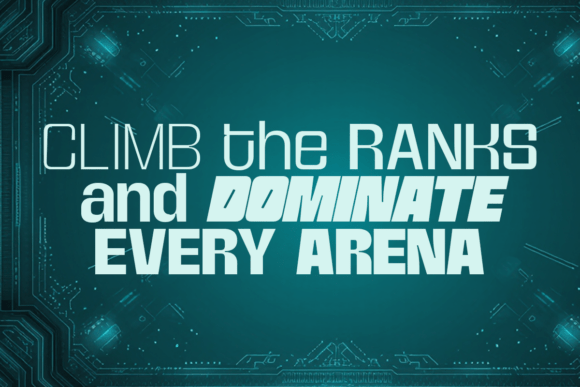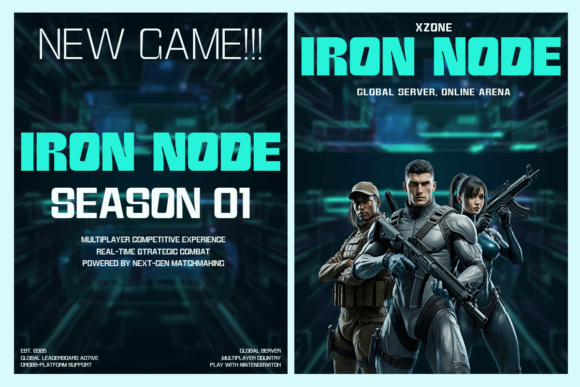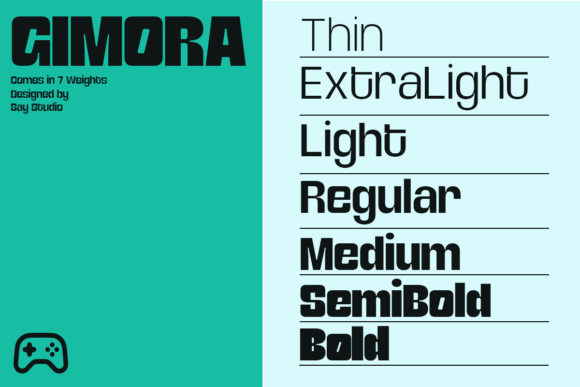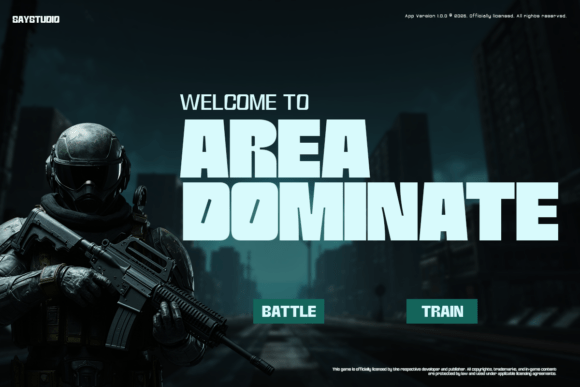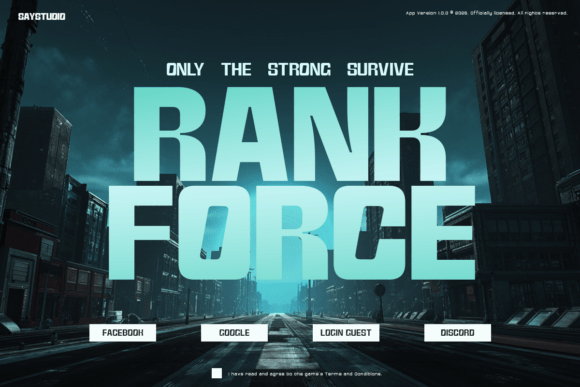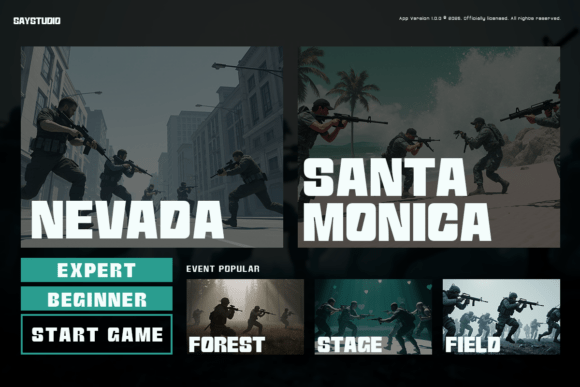
Introduction to Gimora Font
Gimora is a futuristic display family typeface built to deliver bold impact, sharp clarity, and high-tech character across modern visual design.
With its strong geometric construction, clean curves, and dynamic proportions, Gimora creates a powerful presence that feels innovative, digital, and forward-looking This font is designed to stand out instantly while maintaining excellent legibility.